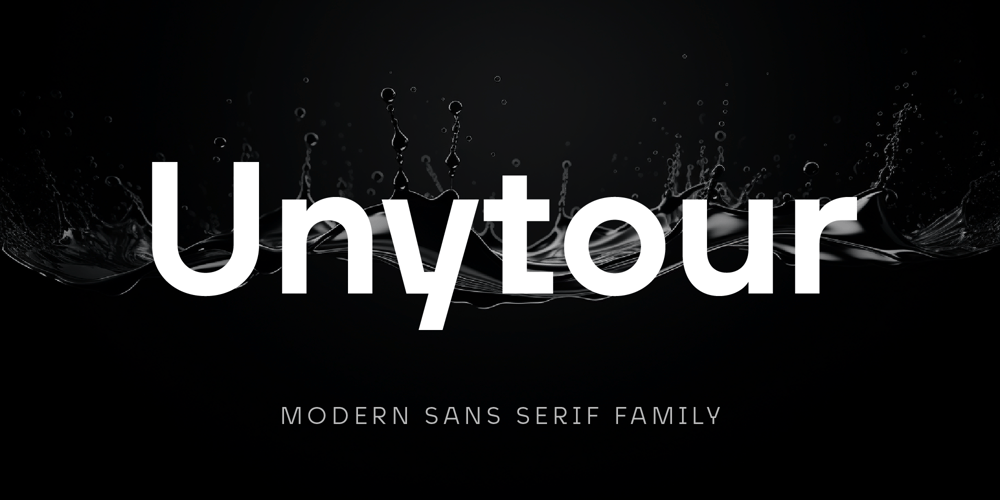
Unytour Font Family was designed by Nikolay Savchuk and published by NicolassFonts. Unytour contains 54 styles and family package options. Unytour is a modern sans serif font family of 54 fonts.It includes nine weights with italics from Extra Light to Heavy. Each weight includes alternatives (A,G,I,R,a,l) and OpenType features.Unytour is easy to read and perfect for logotypes, advertising, packaging, book covers and magazines, headings, corporate identities, and more.